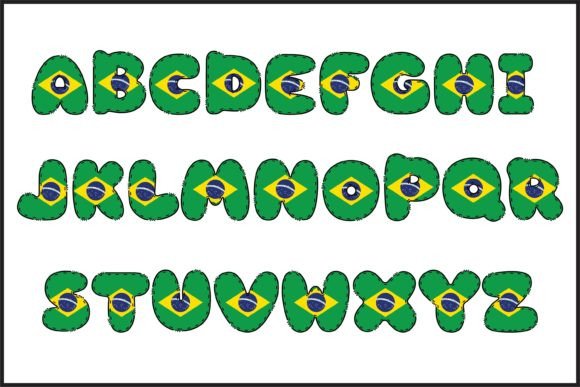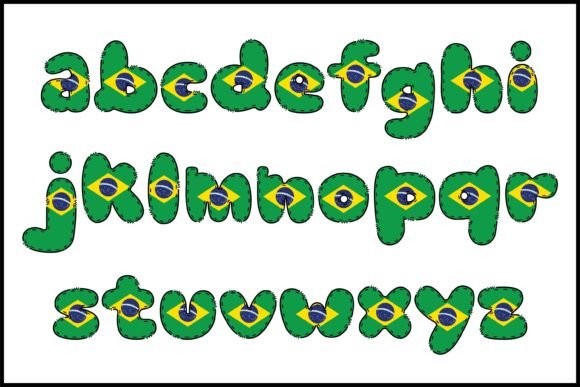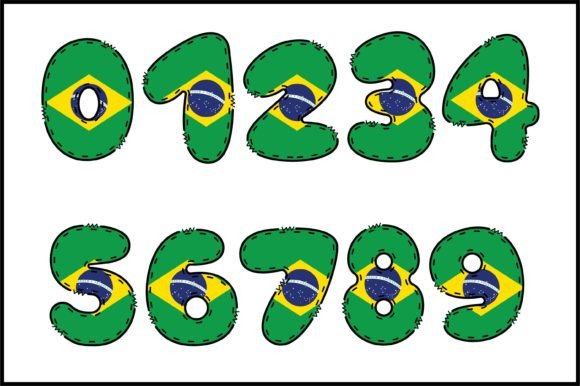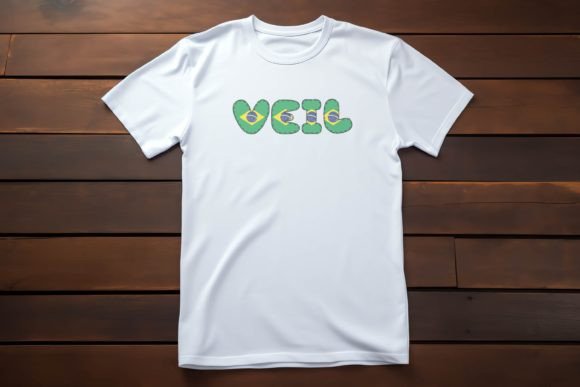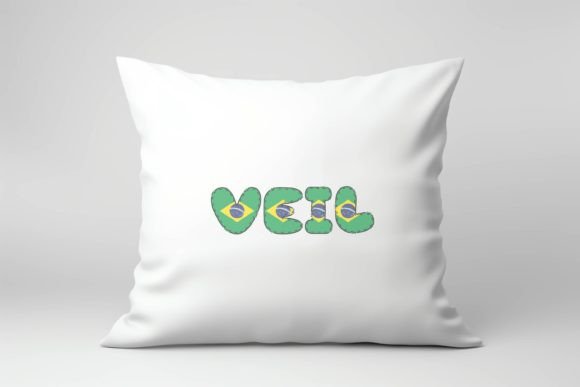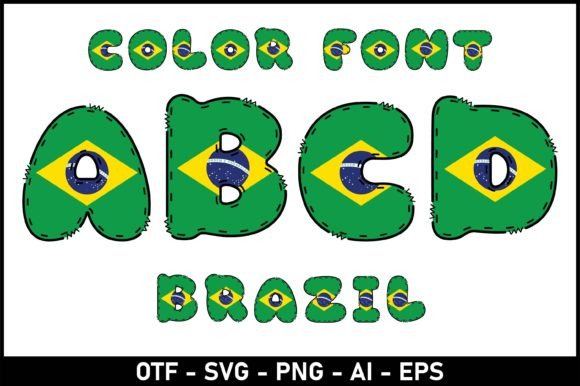
Brazil Font: Adding a Touch of Playfulness to Your Designs
The Brazil font is a popular choice among designers and crafters looking to add a playful and artistic feel to their projects. With its unique and whimsical style, this font is perfect for designs that require a touch of fun and creativity. In this article, we’ll explore the characteristics of the Brazil font, its uses, and provide tips on how to incorporate it into your designs.
Characteristics of Brazil Font
The Brazil font is known for its playful and artistic style, making it an excellent choice for designs that require a touch of whimsy. Some of its key characteristics include:
- Unique letterforms: The Brazil font features unique and stylized letterforms that give it a distinctive look.
- Playful feel: The font has a playful and carefree feel, making it perfect for designs that require a lighthearted touch.
- Colorful: The Brazil font is often used in colorful designs, adding to its playful and artistic feel.
Uses of Brazil Font
The Brazil font is versatile and can be used in a variety of designs, including:
- Children’s books: The Brazil font is often used in children’s books to create an engaging and fun reading experience.
- Posters: The font’s playful style makes it perfect for posters that require a bold and eye-catching look.
- Invitations: The Brazil font can add a touch of whimsy to invitations, making them stand out from the crowd.
- Greeting cards: The font’s playful style makes it perfect for greeting cards that require a personal and friendly touch.
Tips for Using Brazil Font
Here are some tips for incorporating the Brazil font into your designs:
- Use it sparingly: While the Brazil font is playful and fun, it can be overwhelming if used excessively. Use it sparingly to add a touch of whimsy to your design.
- Pair it with other fonts: The Brazil font can be paired with other fonts to create a unique and visually appealing design.
- Experiment with colors: The Brazil font is often used in colorful designs, so don’t be afraid to experiment with different colors to find the perfect combination.
Creating Engaging Designs with Brazil Font
To create engaging designs with the Brazil font, consider the following tips:
- Keep it simple: While the Brazil font is playful, it’s essential to keep your design simple and easy to read.
| Font Name | Brazil Font |
| Author | Veil |
The Brazil font is a versatile and playful font that can add a touch of whimsy to your designs. With its unique letterforms, playful feel, and colorful style, it’s perfect for designs that require a fun and artistic touch. By following the tips outlined in this article, you can create engaging and visually appealing designs that showcase the Brazil font’s unique style.